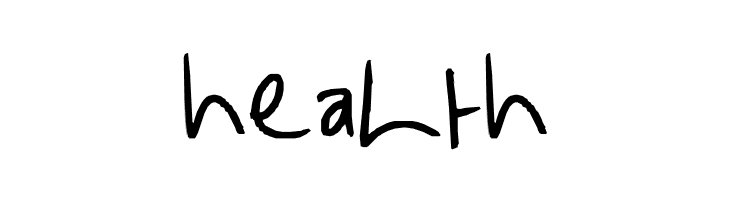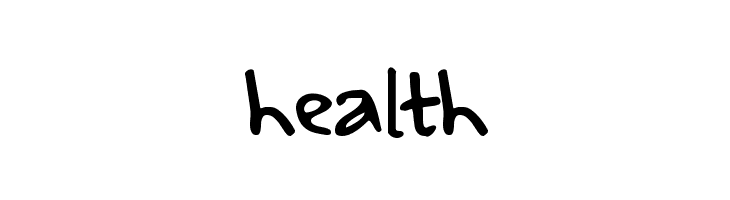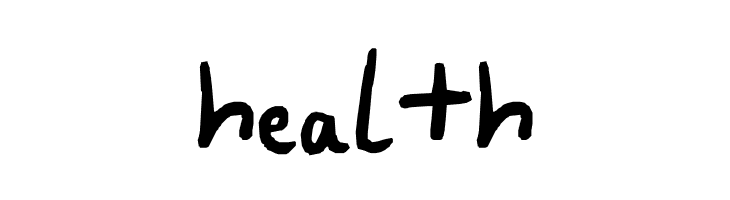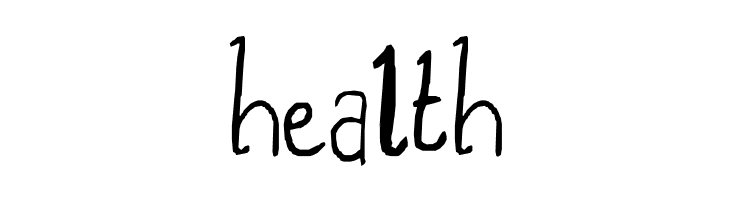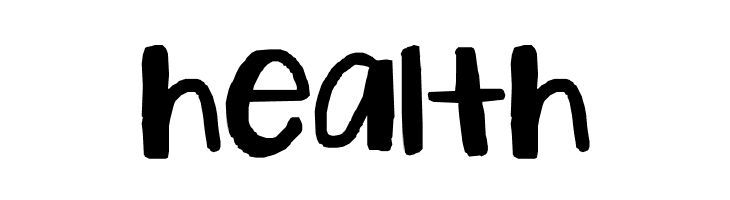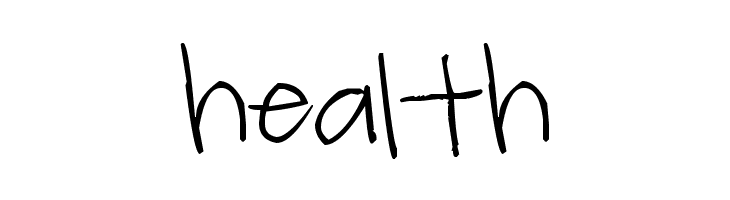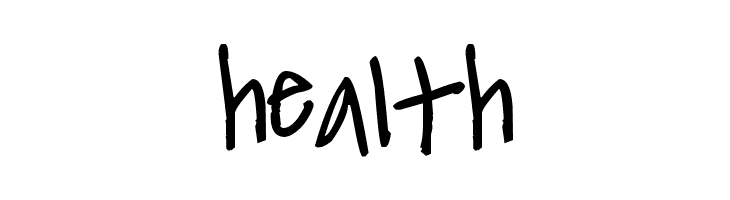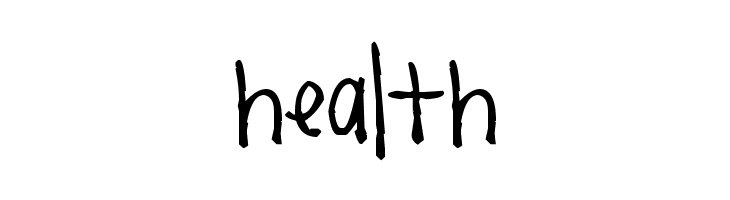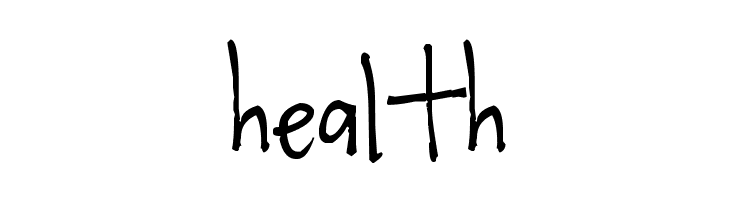
A playful, hand-drawn font with quirky serifs and uneven strokes.
A bold, playful font with exaggerated, uneven strokes and a whimsical style.
A bold, hand-drawn font with dynamic, uneven strokes and a playful style.
A playful, bold font with thick, uneven strokes and a hand-drawn feel.
A bold, rugged font with thick, uneven strokes and dynamic character shapes.
A bold, rugged, hand-drawn style font with thick, uneven strokes.
A rugged, distressed font with jagged, uneven edges for a bold, energetic look.
A bold, expressive font with playful, uneven strokes and a hand-painted feel.
A bold, playful font with a hand-drawn, whimsical style and uneven strokes.
A bold, playful font with cartoonish, uneven strokes and quirky cutouts.
A bold, playful font with thick, uneven strokes and whimsical curves.
A playful, hand-drawn font with uneven strokes and a whimsical style.
A playful, bold, and cartoonish font with thick, uneven strokes and a hand-drawn feel.
A bold, hand-drawn font with rugged, uneven edges and a dynamic style.
A playful, bold, hand-drawn font with thick, uneven strokes.
A whimsical, handwritten font with playful, uneven strokes.
A playful, spooky font with jagged, uneven characters perfect for Halloween themes.
A playful, informal handwritten font with uneven strokes and a casual appearance.
A distressed, hand-drawn font with a grunge style and uneven texture.
A bold, expressive handwritten font with uneven strokes and dynamic energy.
A playful, bold font with thick, uneven strokes and a whimsical style.
A whimsical, handwritten font with playful, uneven strokes.
A bold, playful font with cartoonish, uneven strokes and exaggerated curves.
A bold, playful font with exaggerated, uneven letterforms.
A bold, hand-painted style font with dynamic, uneven strokes.
A whimsical and quirky font with playful curves and uneven strokes.
A bold, expressive handwritten font with thick, uneven strokes.
A playful, spooky font with jagged, uneven strokes, perfect for Halloween themes.
A playful, hand-drawn font with uneven strokes and a casual style.
A bold, expressive brush-style font with dynamic, uneven strokes.
A playful, hand-drawn font with uneven strokes and an organic feel.
A playful, casual handwritten font with uneven strokes and organic flow.
A playful, handwritten font with uneven strokes and a casual style.
A playful, spooky font with quirky, uneven letterforms and bold strokes.
A playful, handwritten font with tall, narrow letters and uneven strokes.